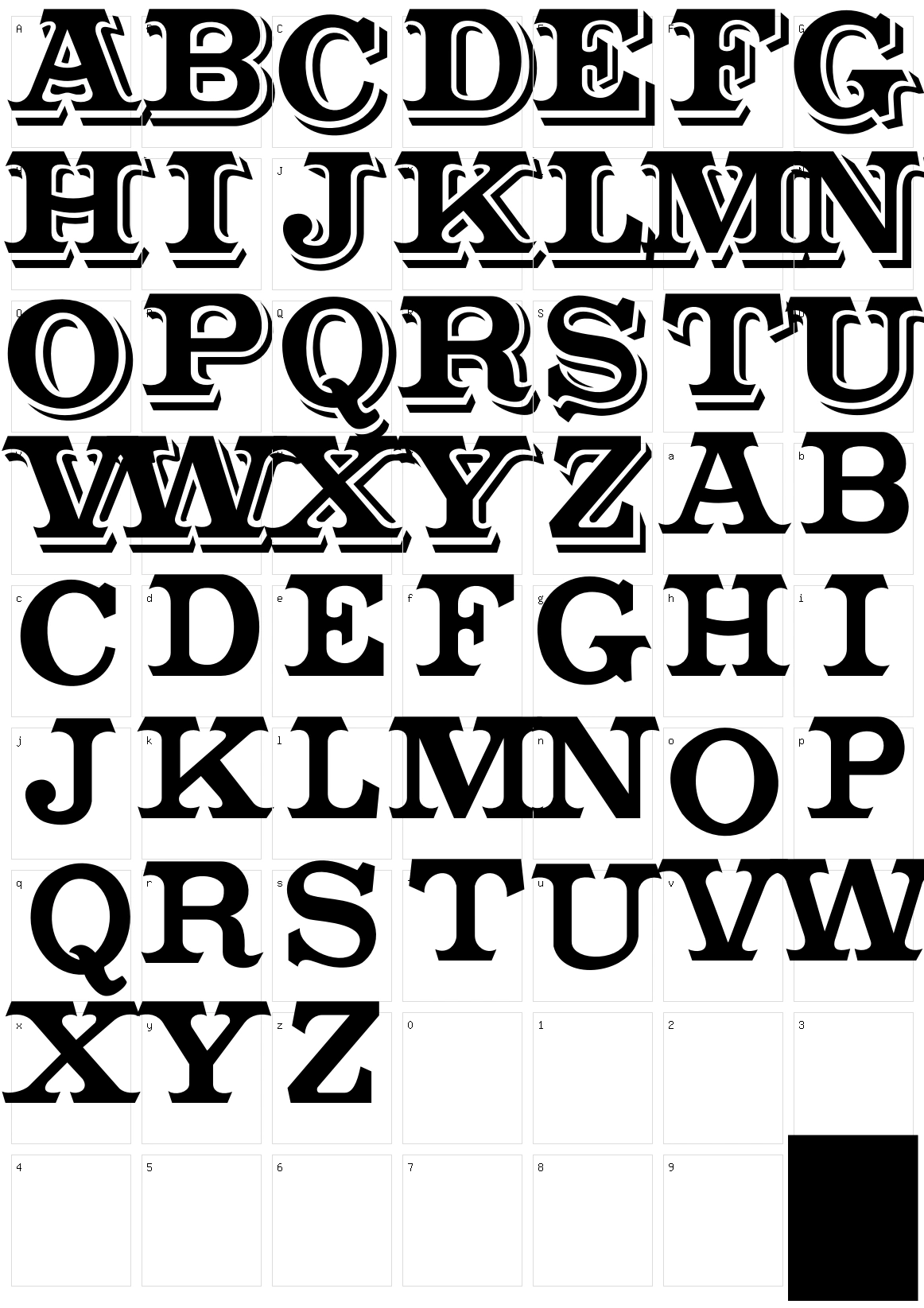
The small caps lower case is based on the capitals with the shadows removed. Some letters are unaltered; most are significantly different from the capitals.
I reduced the width of the wide stem on a number of letters, (B, D, E, F, H. I, J, K, L, M, P, R, T, and U), to 30 pixels in my source graphics, compared to 39-42 pixels width in the capitals. A smaller number of pixels was removed from the wide diagonal stem on the V and W - I was able to remove 4-6 pixels in the vertical section between the curvatures of upper and lower serifs. If I had tried to narrow the X or Y, it would have altered straight line slopes. They don't look overly big. The left and right sides of the O were made thinner by increasing the size of the white interior. Both sides of the Q were made equal in the small caps, but the left side is wider than the right in the capitals, by design.
So, I found this great alphabet, and thought it would look even better as a font. I downloaded the graphics from bigletters.org, cropped them, reduced the size, (36%, less for the W), and redrew the images to monochrome.
Outstanding is designed to be used often at larger than 72 points, so even the smallest errors would be noticeable. I think this would be a great font for titling, signage, and athletic wear, like University sweat shirts. The small caps would probably be great in children's books.
I usually do dingbat fonts, so if you aren't familiar with my previous work, yes, the glyphs are much larger than in everyone else's fonts, as they are in all of my fonts. I haven't yet found a limit to the maximum size of a glyph that can be made with ScanFont. I haven't found a need to make them larger than a printed page yet. I try to do fonts that can't be done if the glyphs are smaller. Outstanding looks great down to 14 points in the capitals, and the small caps can be read easily at 6 points, but they don't have a uniform size when they're that small.